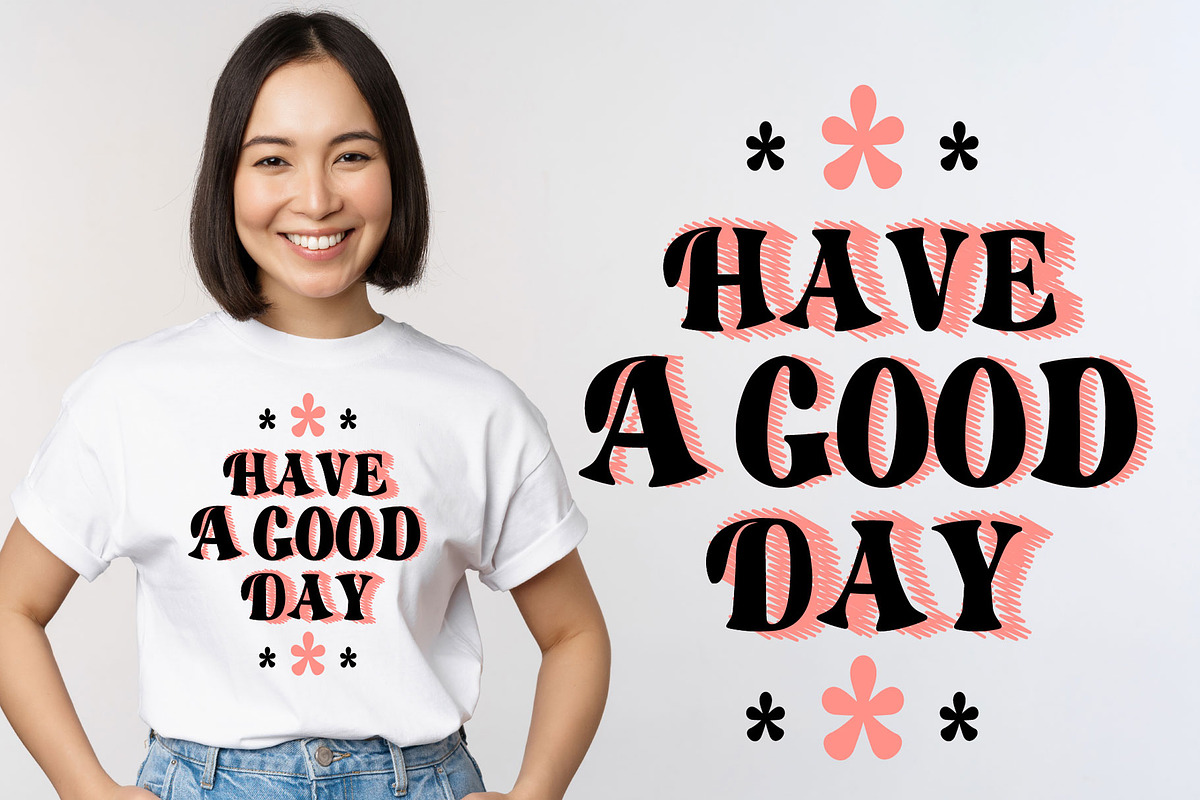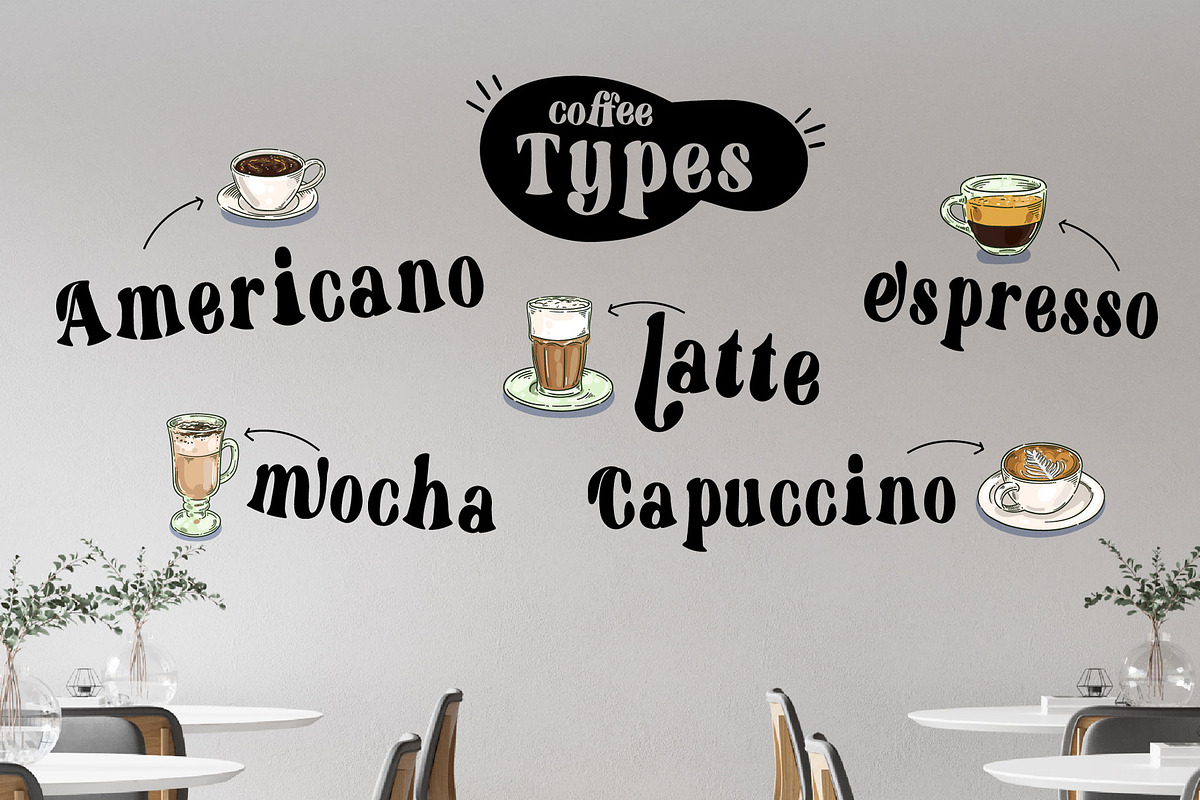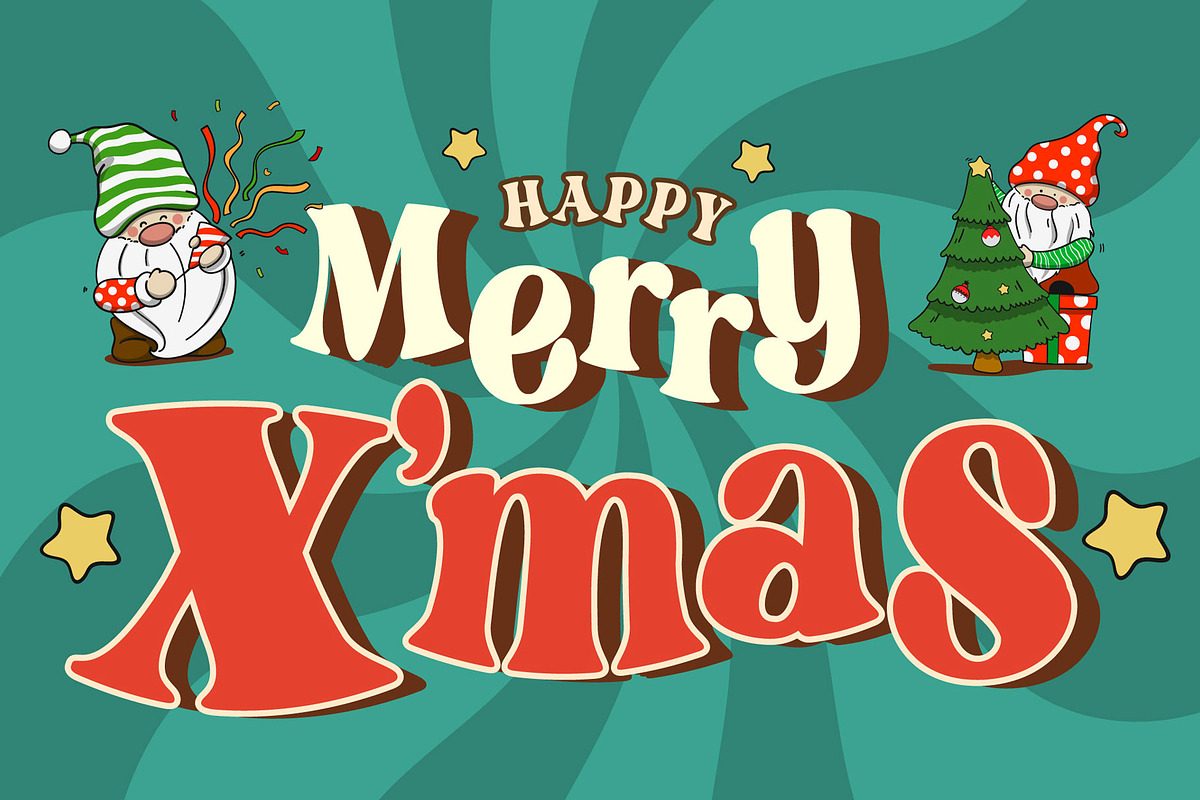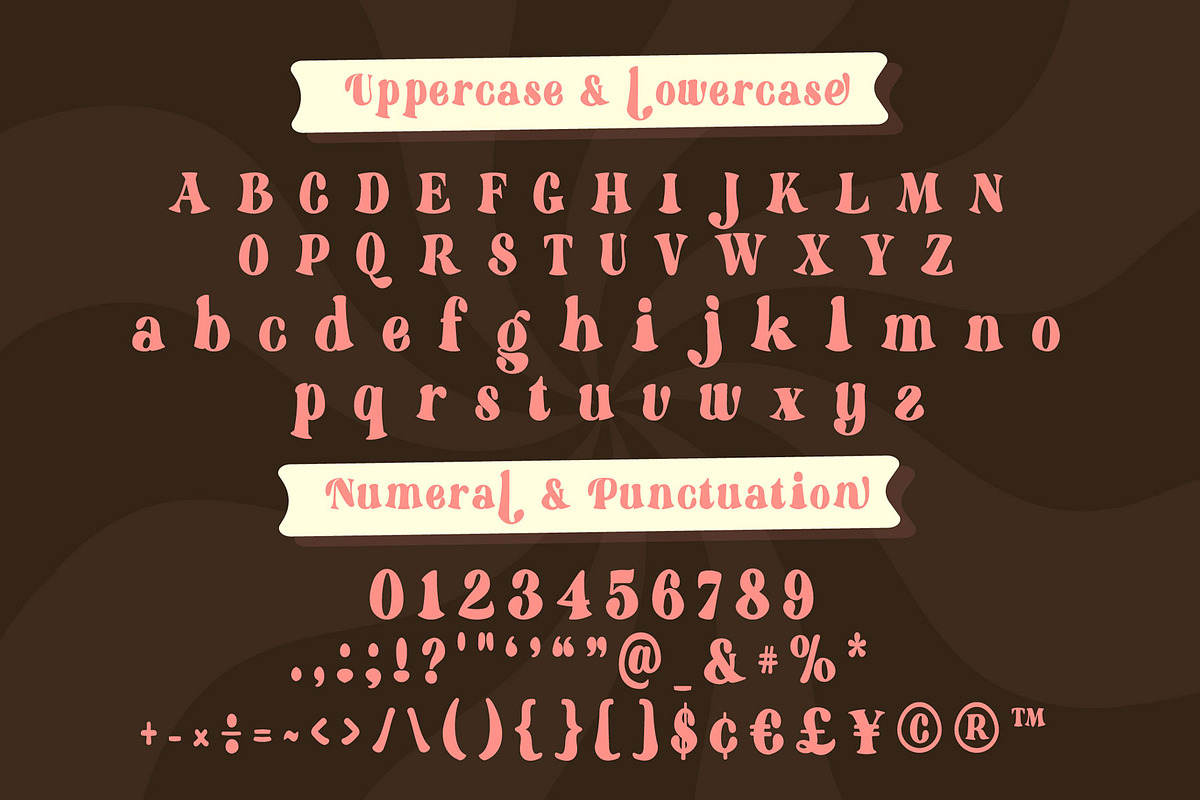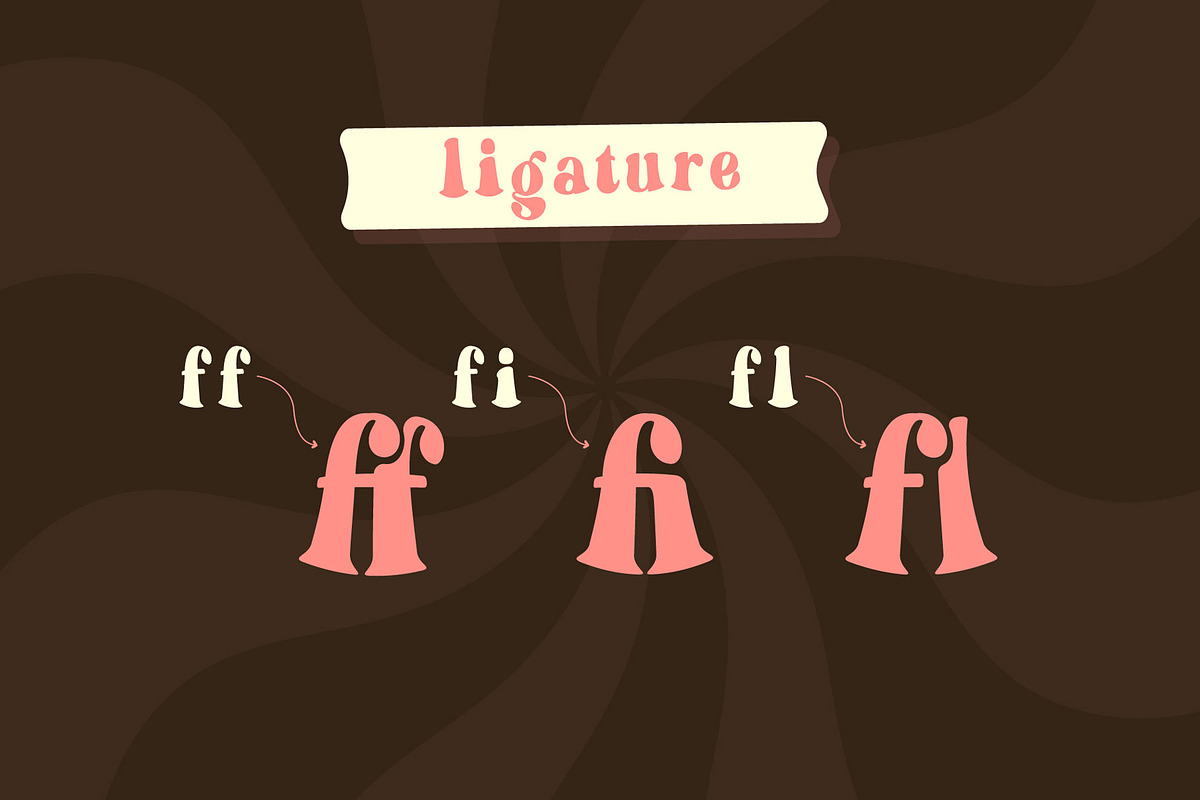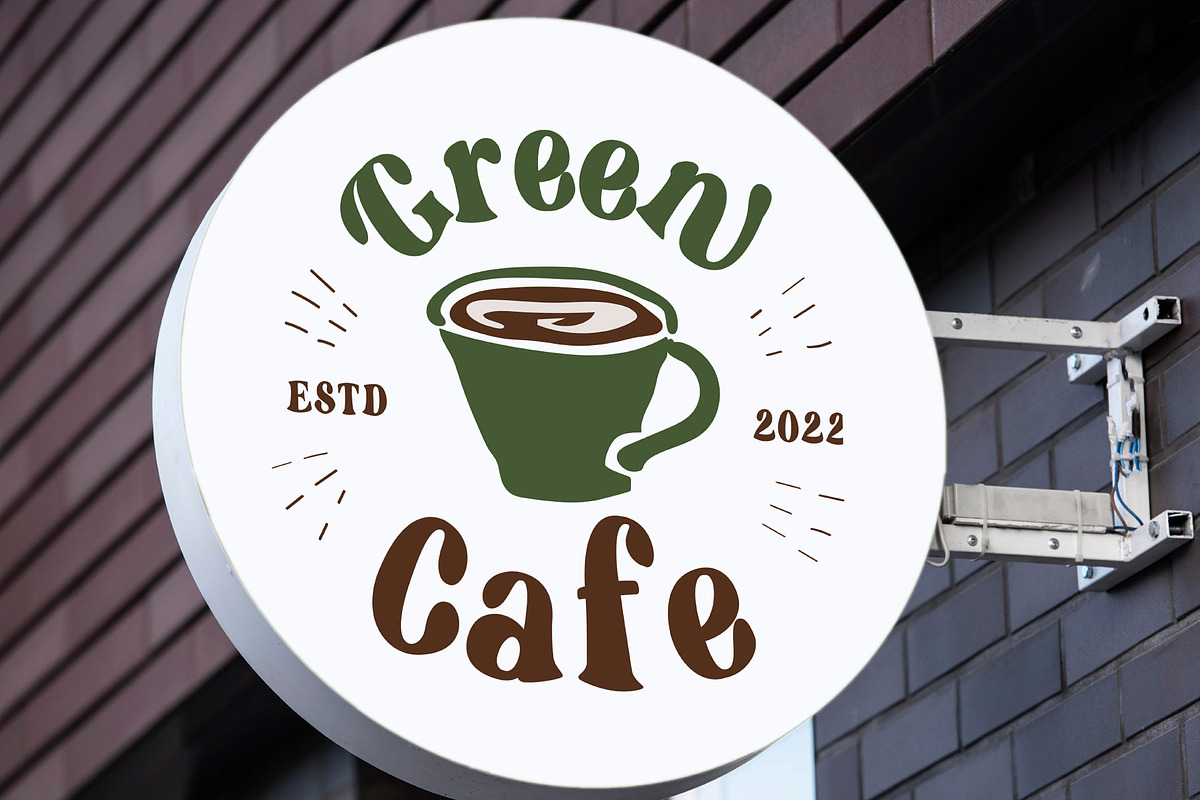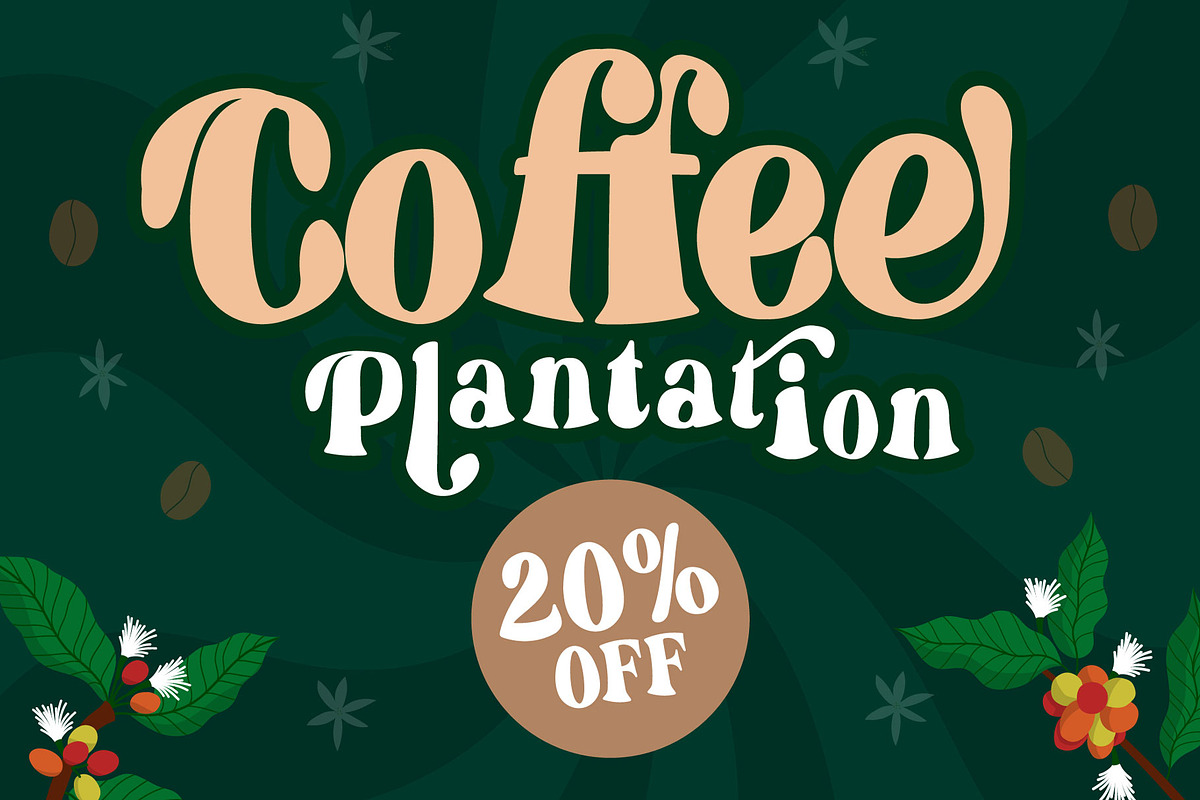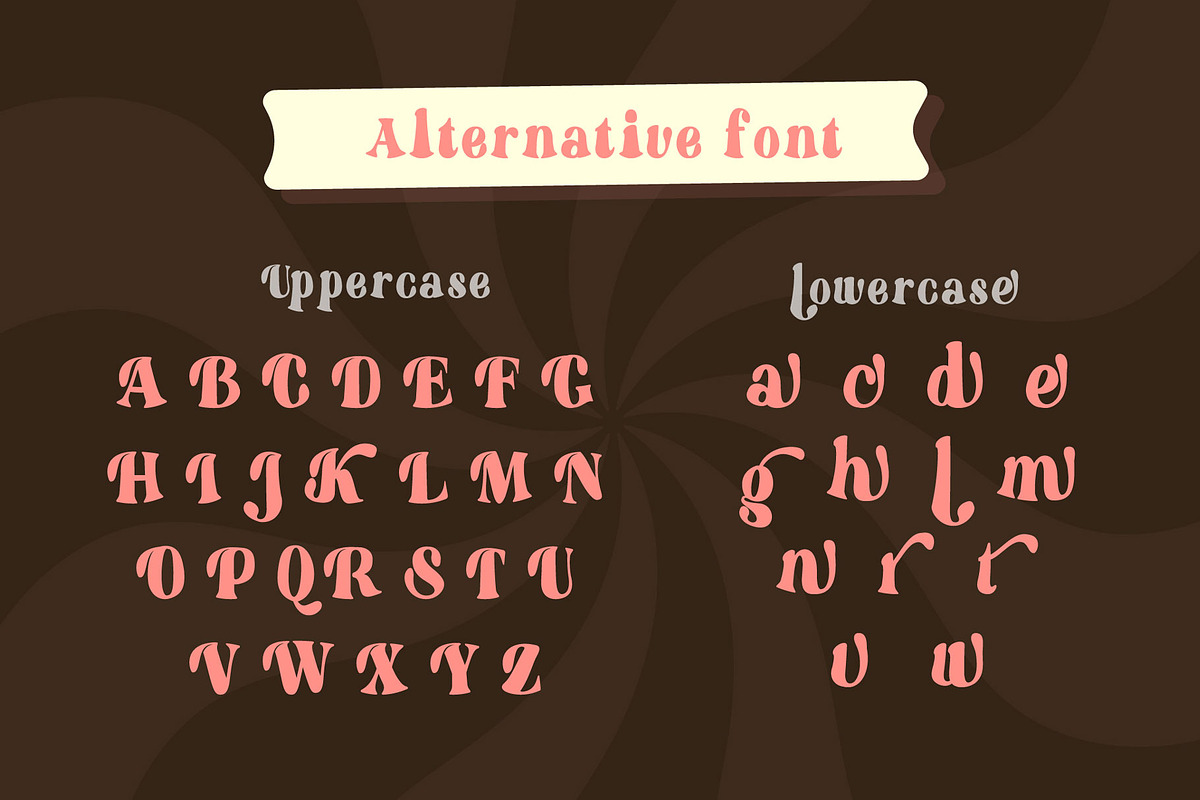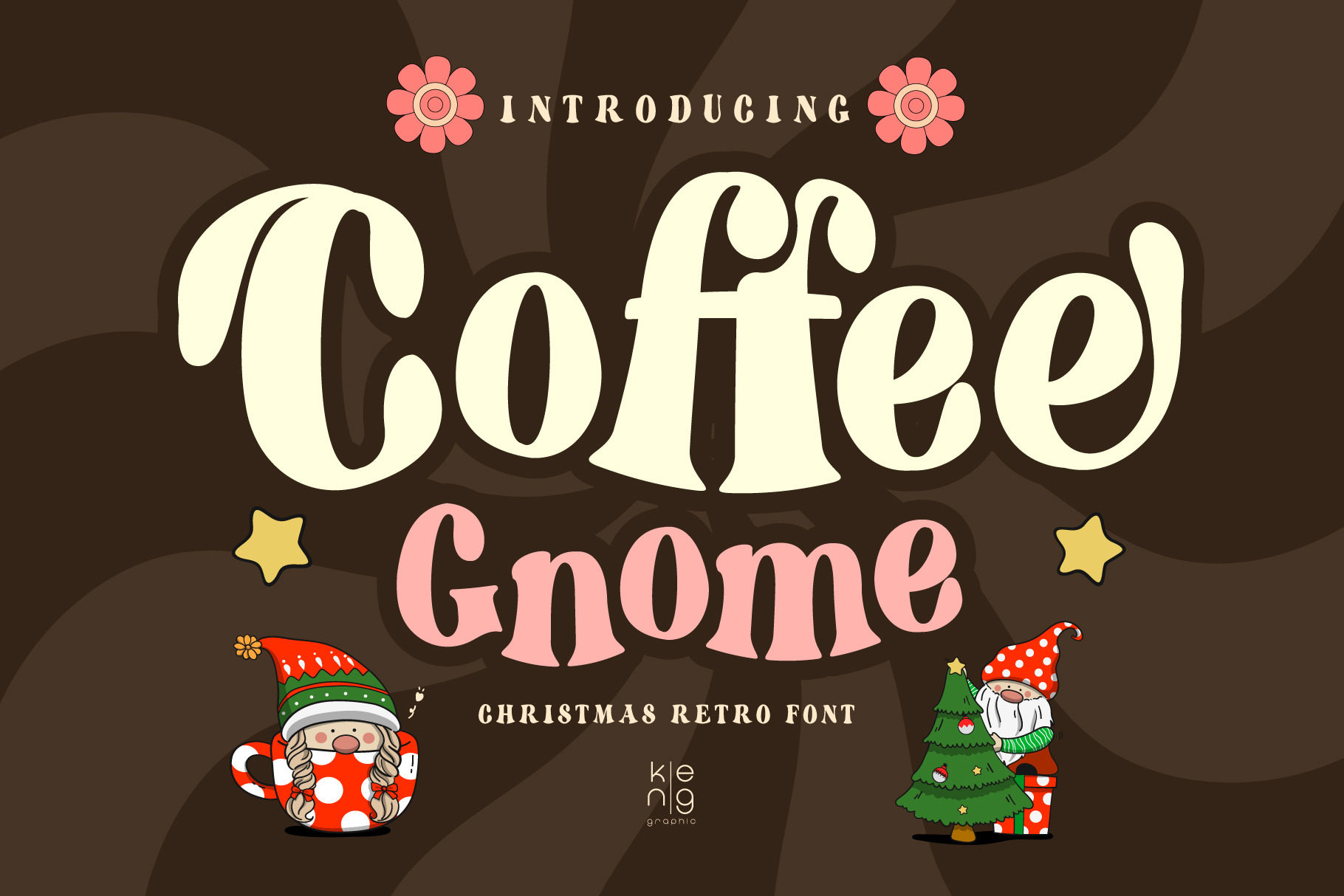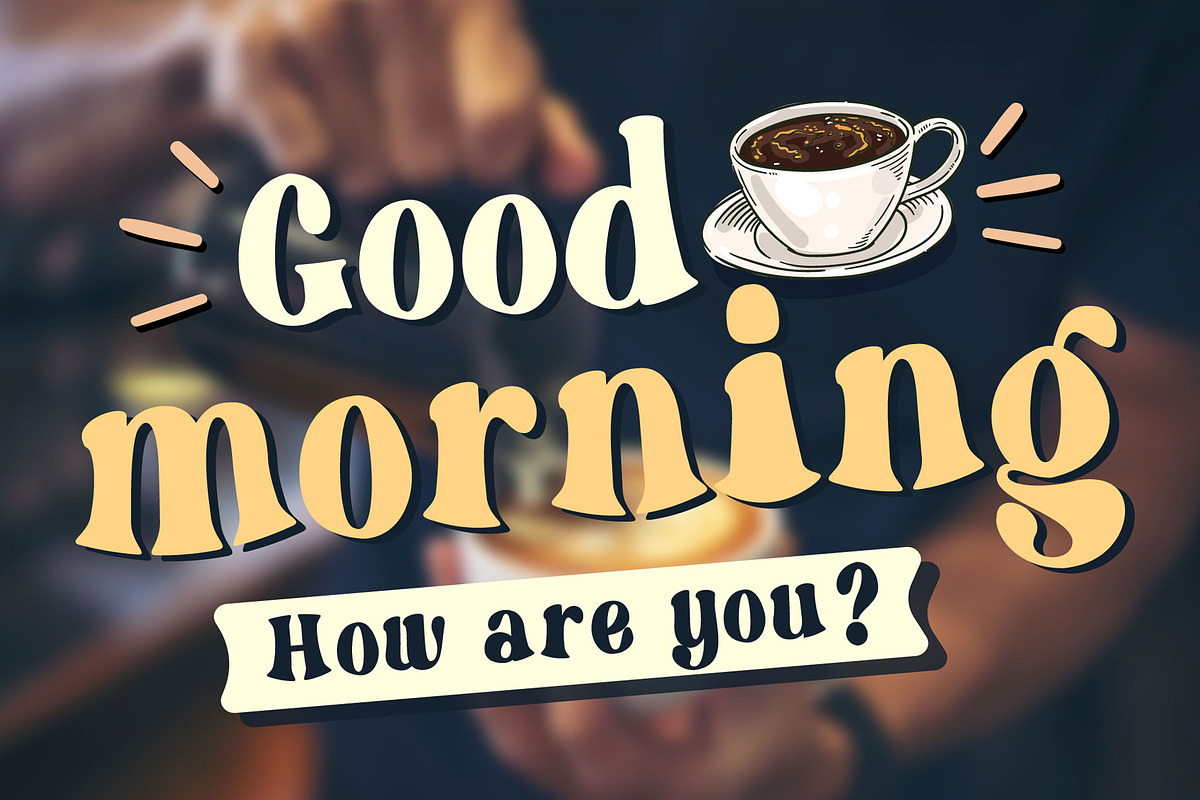
Coffee Gnome Font
Coffee Gnome is a clean and smooth vintage-style retro font. Use this cool display font to add a special retro touch to any design idea you can think of. This font is PUA encoded which means you can access all the glyphs and ligatures with ease!